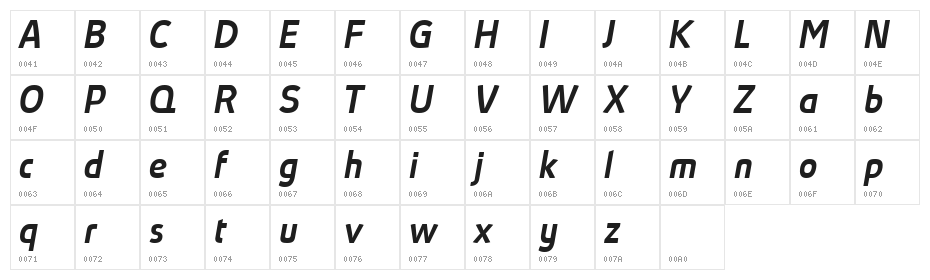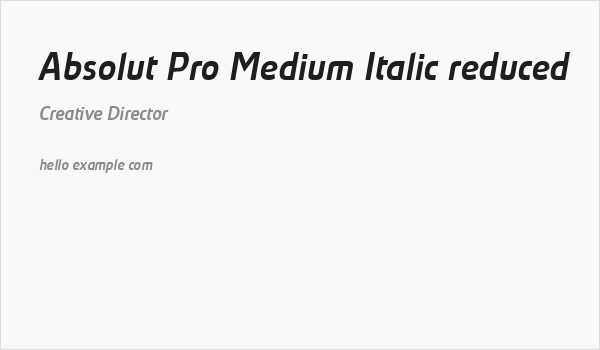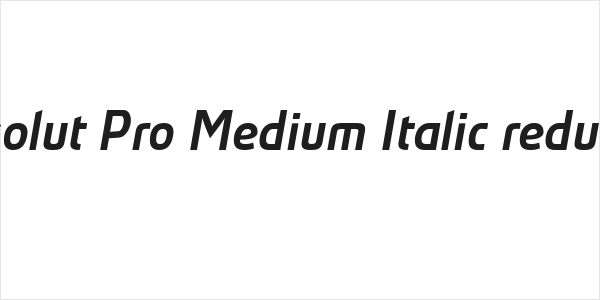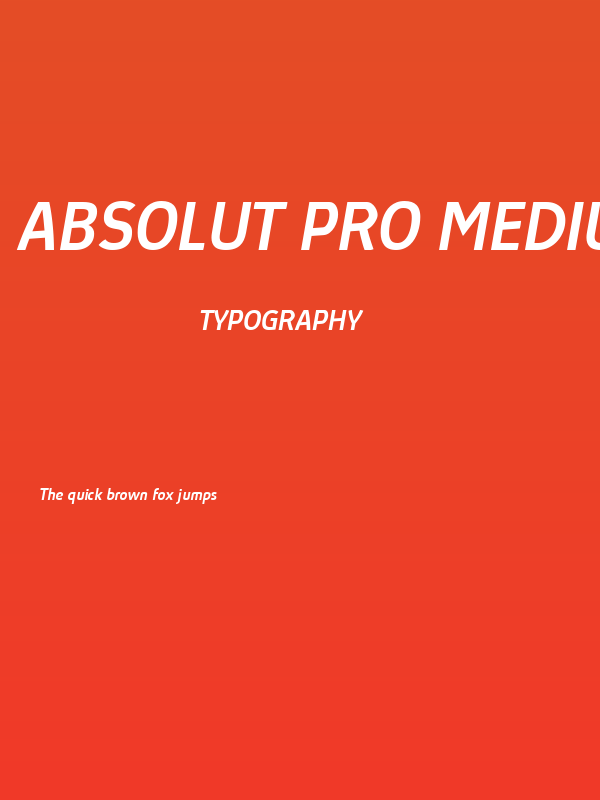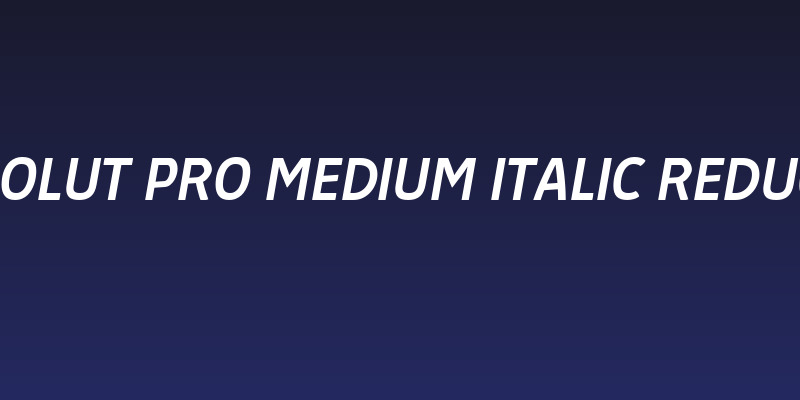
Absolut Pro Medium Italic reduced Font
Absolut Pro Medium Italic reduced Description
This font features a modern and sleek design with a slight italic slant, giving it a dynamic and forward-moving appearance. The characters are well-proportioned, with a consistent stroke width that provides a clean and uniform look. The uppercase letters are bold and commanding, while the lowercase letters maintain a friendly and approachable style. The font's design is versatile, making it suitable for both digital and print media. Its contemporary aesthetic is enhanced by the subtle curves and angles, which add a touch of elegance without compromising readability.
| Proposed Projects | Ideal for branding, advertising, websites, and editorial design where a modern and professional look is desired. |